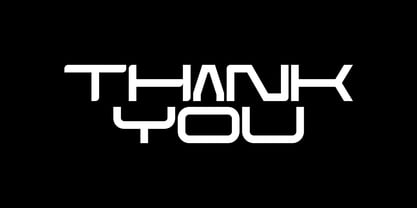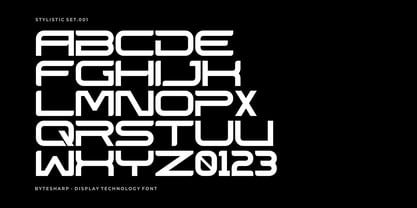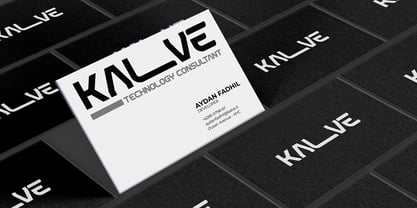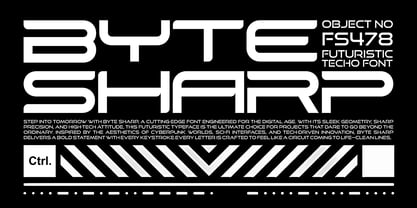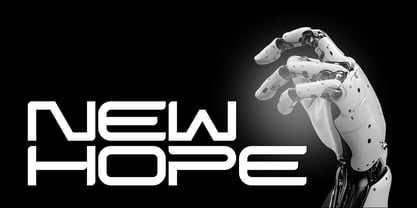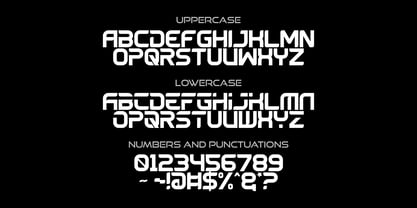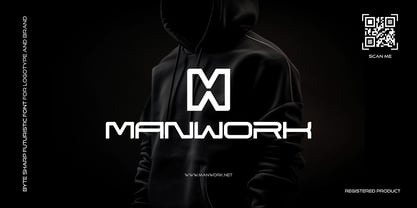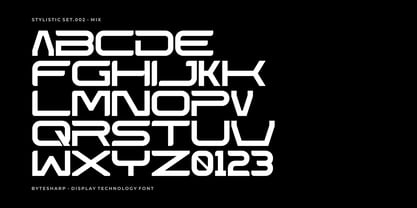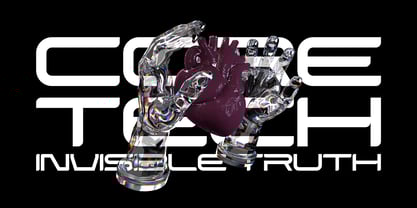
Byte Sharp
Byte Sharp is a cutting-edge futuristic techno font designed to inject your work with high-voltage digital energy. With its clean geometry, sharp edges, and cyberpunk soul, Byte Sharp is perfect for high-tech branding, sci-fi titles, user interfaces, and modern posters that demand a bold, forward-thinking look.
✦ Features:
• Single Powerful Style – Sleek and minimalist for maximum visual impact
• Uppercase + Lowercase Letters – Full flexibility in composition
• Stylish Alternates 001–006 – Unlock creative possibilities with unique character variations
• Multilingual Support – Covers major Latin-based languages
• Standard Punctuation & Numbers – Complete and ready for real-world use
✦ Why You’ll Love It:
• Futuristic Design Aesthetic – Perfect for AI, cyber, digital, or sci-fi themes
• Highly Versatile – Ideal for posters, branding, album covers, packaging, and tech gear
• Professional Quality – Crafted for clarity and impact on both print and digital
• Creative Control – Alternate styles help you build custom looks in seconds
Byte Sharp isn’t just a font—it’s your digital weapon for pushing the limits of modern design.